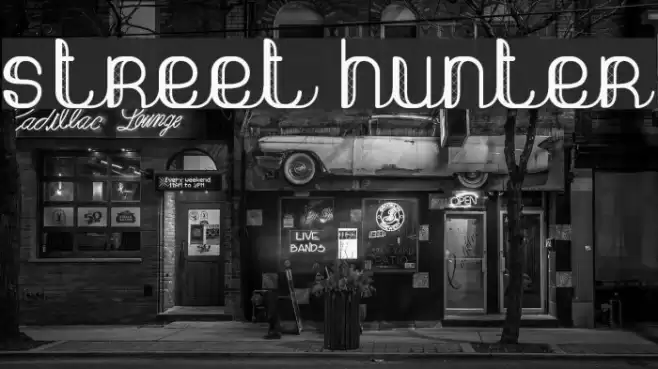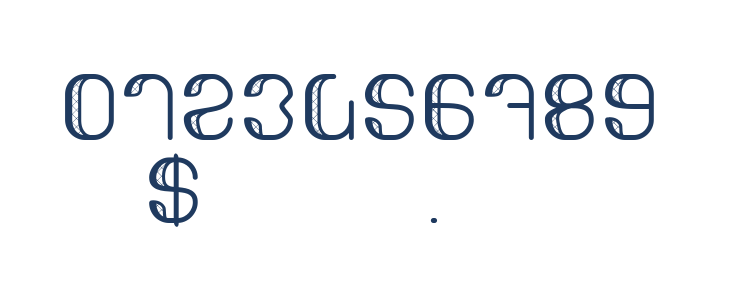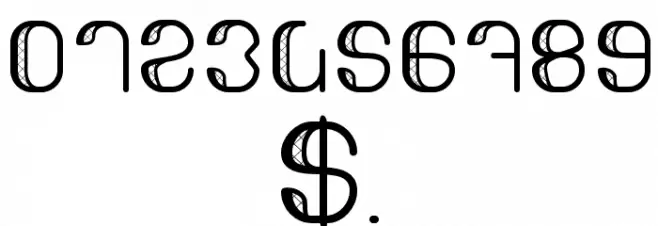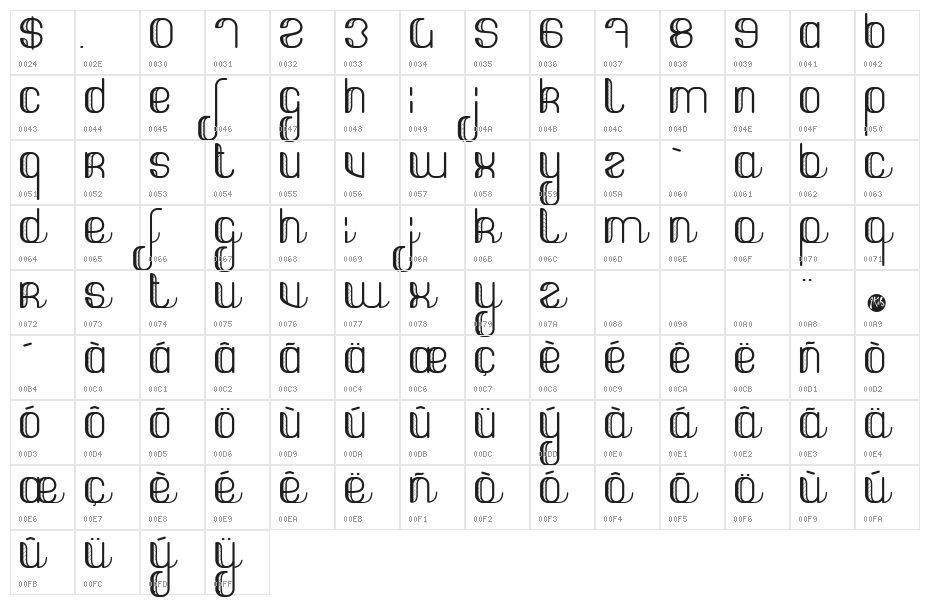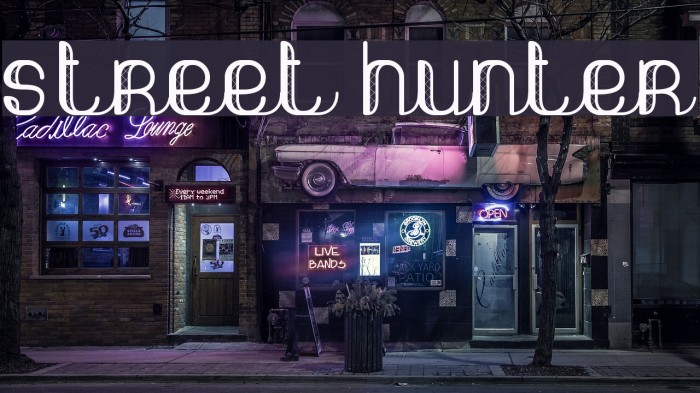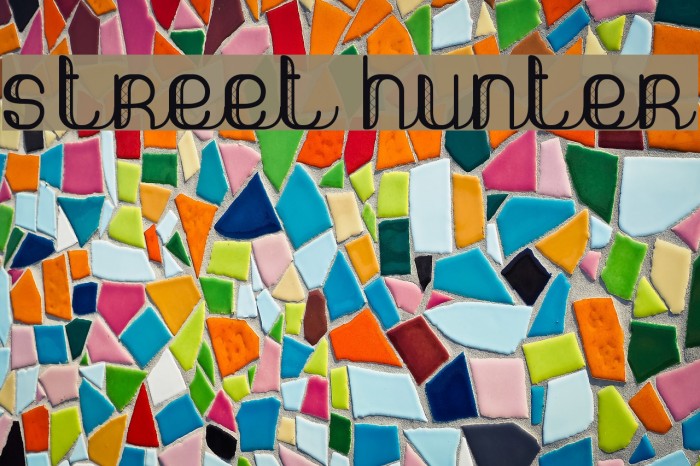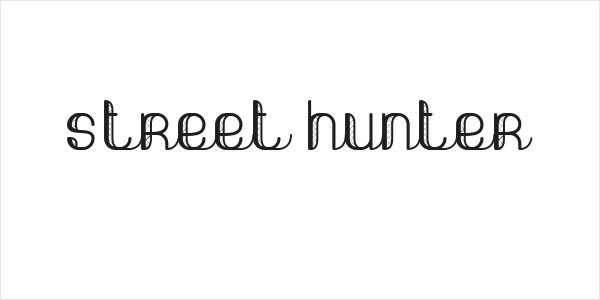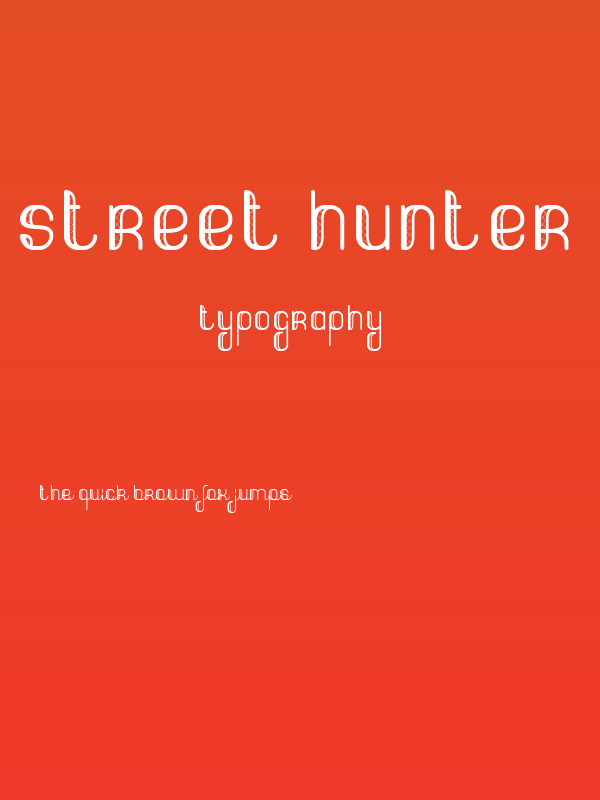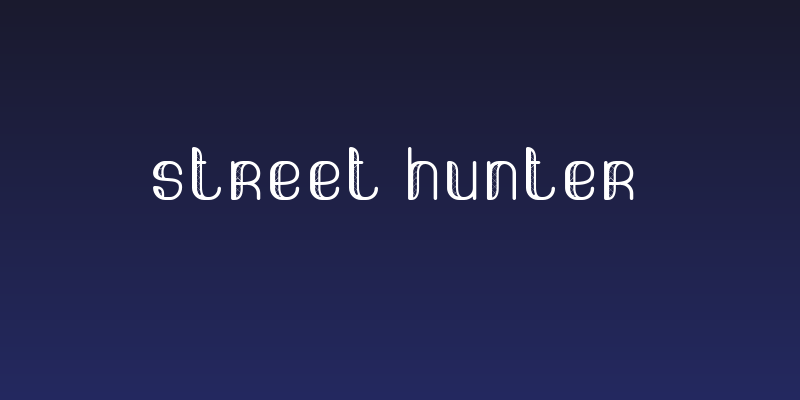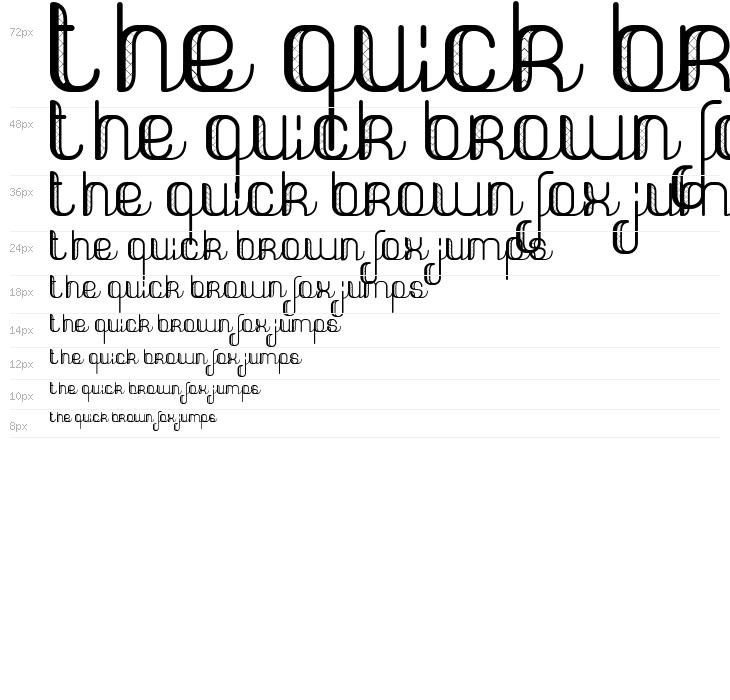
Street hunter Font
This font features a unique and artistic design with a blend of modern and decorative elements. The characters are outlined with a bold, black stroke and filled with a crosshatch pattern, giving them a textured appearance. The letters have a tall, narrow form with rounded edges, creating a sleek and stylish look. The uppercase and lowercase letters maintain a consistent style, while the numbers and special characters follow the same design principles. This font stands out with its creative and eye-catching aesthetic, making it ideal for projects that require a distinctive visual impact.
A modern, decorative font with bold outlines and a crosshatch fill from Uncategorized fonts.
- Proposed Projects: Ideal for branding, posters, album covers, and artistic projects.
- Overall Style: Modern, Decorative